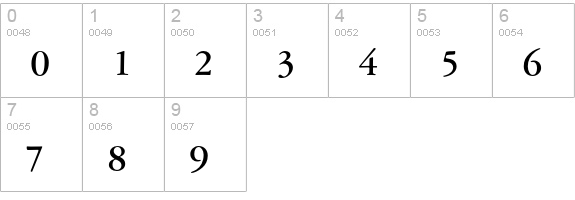
American Garamond Bold Font Details
American Garamond Bold is a strong, high-contrast variant in the American typeface family \xE2\x80\x94 well suited to headlines, attention-grabbing titles, and strong calls-to-action.
American Garamond Bold is a timeless and elegant font that exudes sophistication and professionalism. With its bold and robust strokes, this typeface commands attention and makes a strong visual impact. Ideal for headlines, titles, and branding materials, American Garamond Bold strikes the perfect balance between classic and modern design elements. This versatile font is perfect for a wide range of projects, from print materials to digital designs. Whether you're working on a corporate presentation, a magazine layout, or a website, American Garamond Bold will elevate your design and give it a polished and refined look. Best of all, American Garamond Bold is available for free download at FontsMarket.com. This means you can easily access this high-quality font and incorporate it into your projects without any cost. Don't miss out on the opportunity to enhance your designs with the timeless beauty of American Garamond Bold.